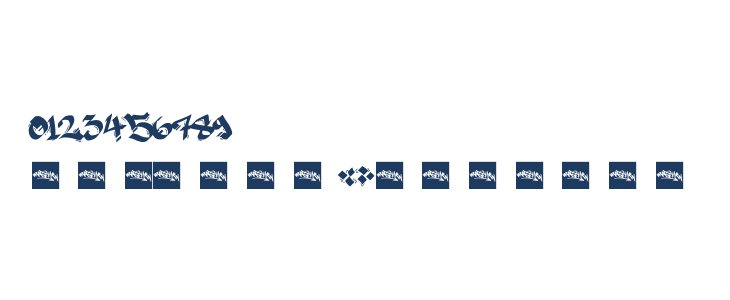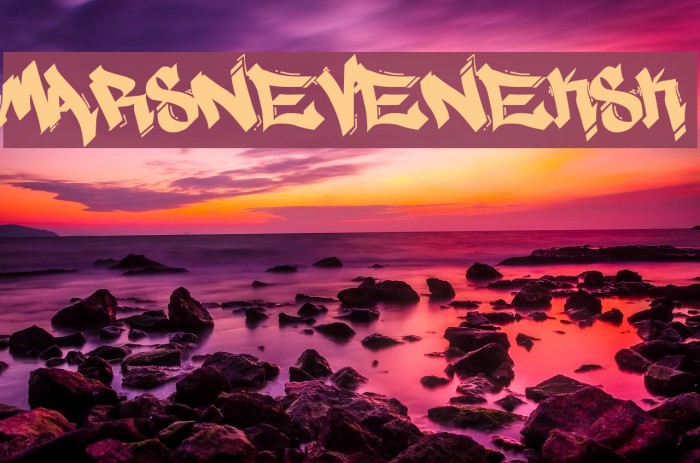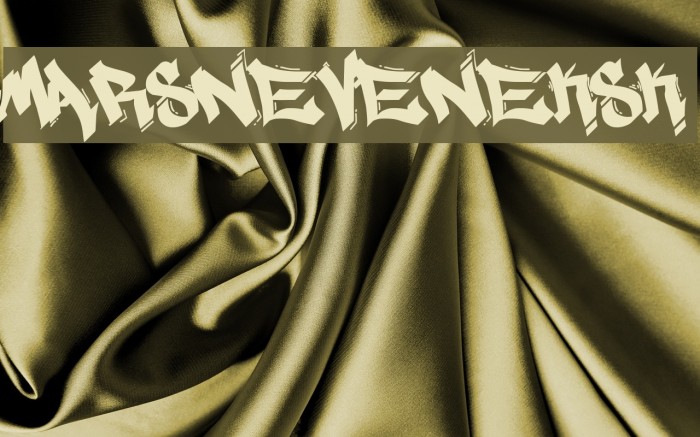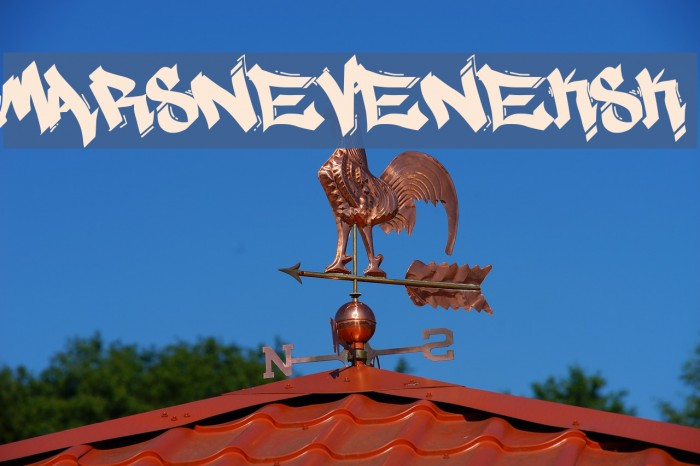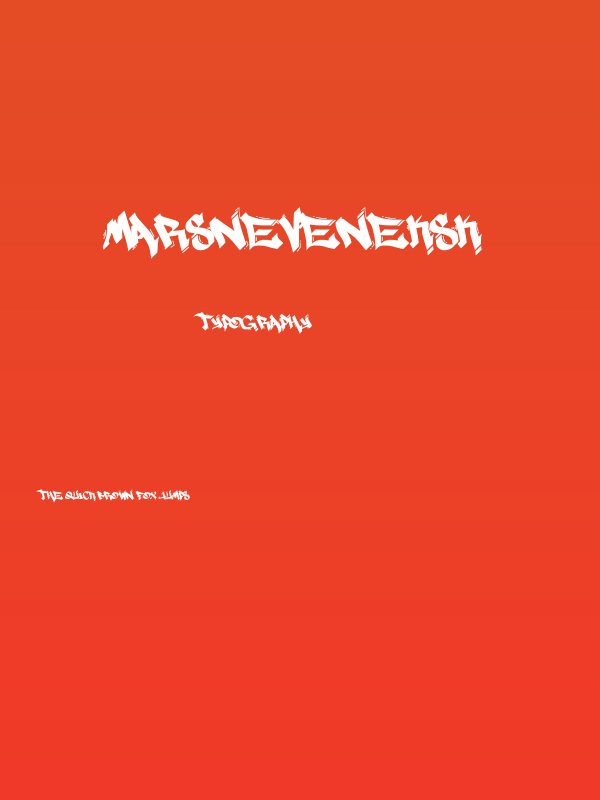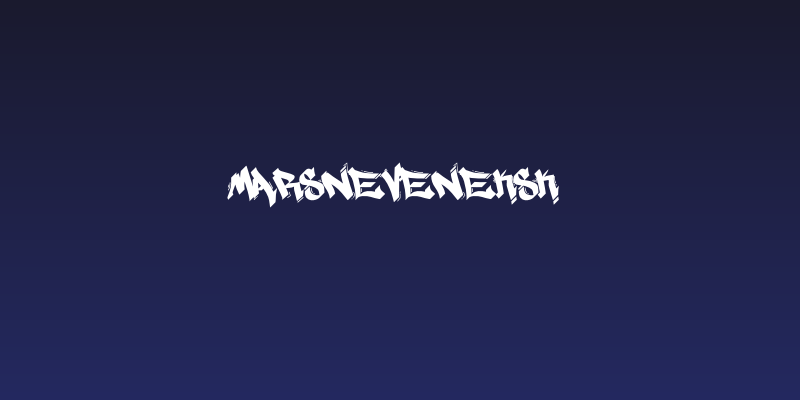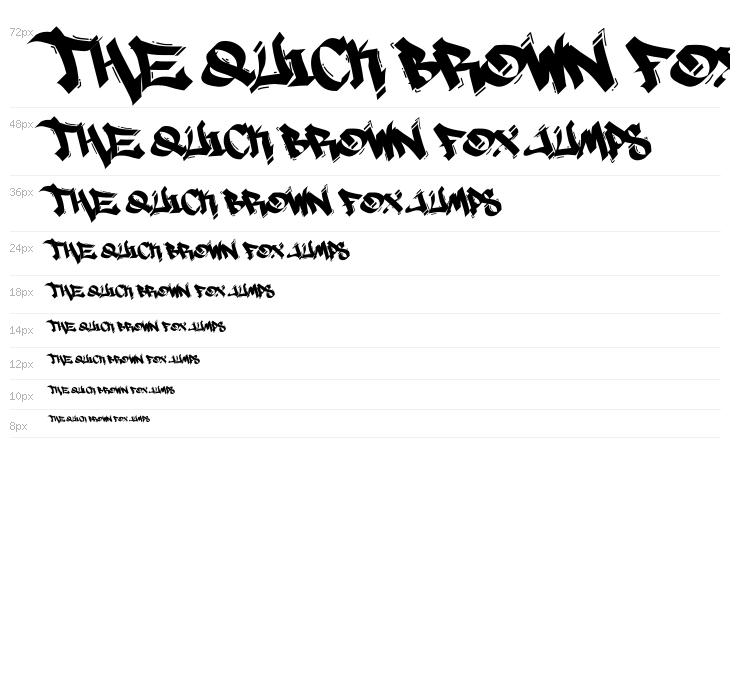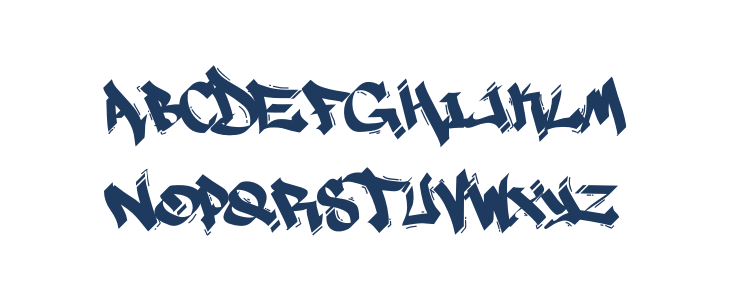
MARSNEVENEKSK Font
MARSNEVENEKSK Description
This font exhibits a bold and dynamic graffiti-inspired style, characterized by its sharp, angular lines and energetic strokes. The letters are designed with a sense of movement and flair, giving them a rebellious and urban feel. The uppercase and lowercase characters maintain a consistent style, with exaggerated serifs and a slightly distressed appearance that adds to the raw aesthetic. The numbers and special characters follow the same design principles, ensuring a cohesive look across all elements. This font is perfect for projects that require a strong, impactful visual statement.
| Overall Style | Modern, Urban |
| Proposed Projects | Ideal for street art projects, urban-themed posters, music album covers, and edgy branding materials. |